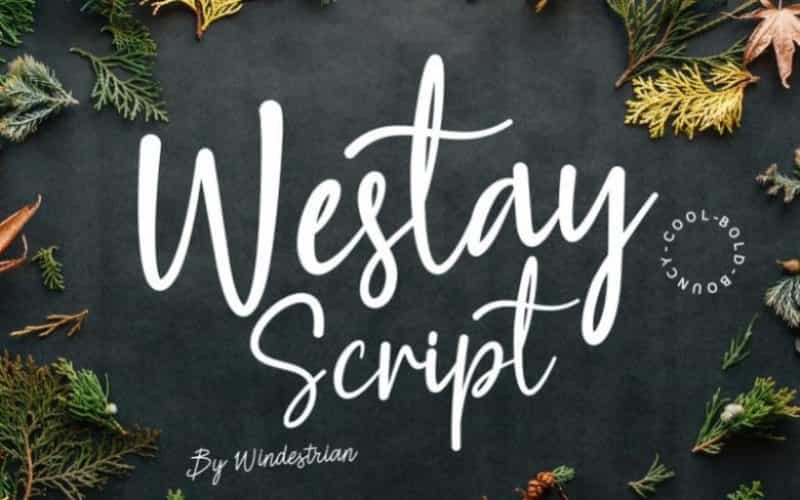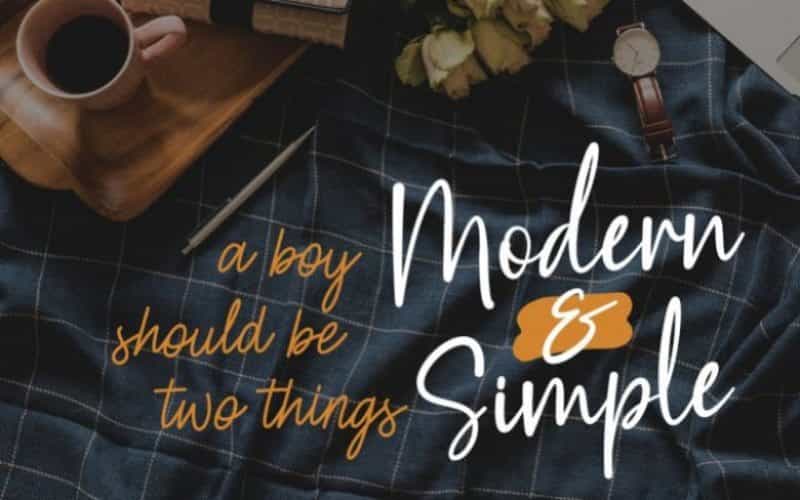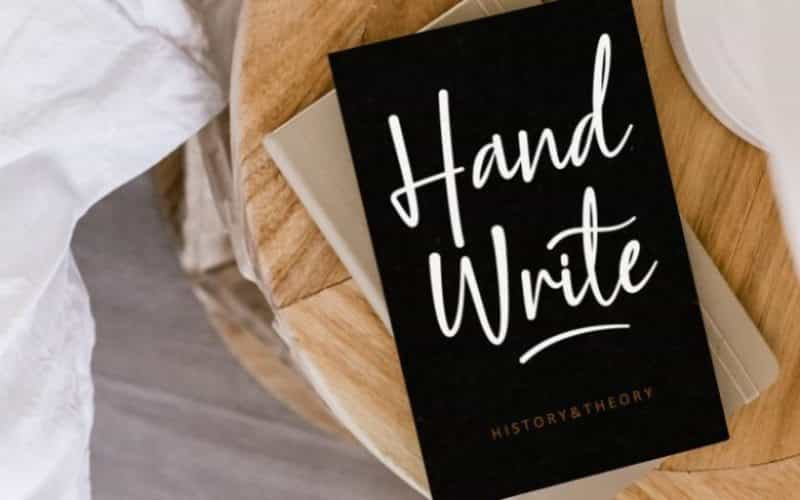
Discover Westay Bold Script Font, part of the Brush Handwritten collection—a versatile and unique font perfect for adding a personal touch to your projects. Download it for free and enjoy crafting designs with style, from invitations to social media posts. This font is available exclusively for personal use, giving you the freedom to create without limits. Unlock your creativity with Westay Bold Script Font today!
This font is distinctively individual, assertive, plain, lively and funky at the same time. It can be used in quotes text, wedding cards, posters and if you feel creative you can design your own cards to take to your kin. Westay Script is a script typeface type that is elegant and amusing at the same time. Good for Logos, Titles, Tees Design or Indie flyer and Poster.